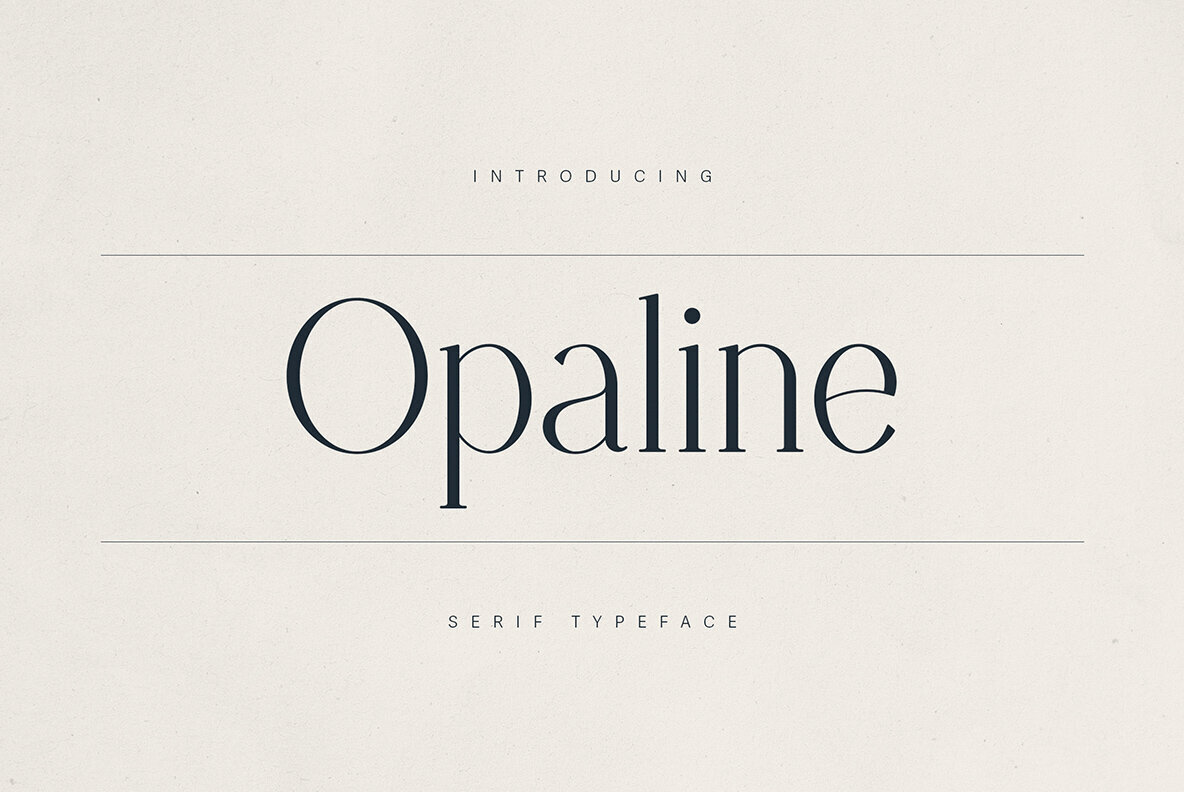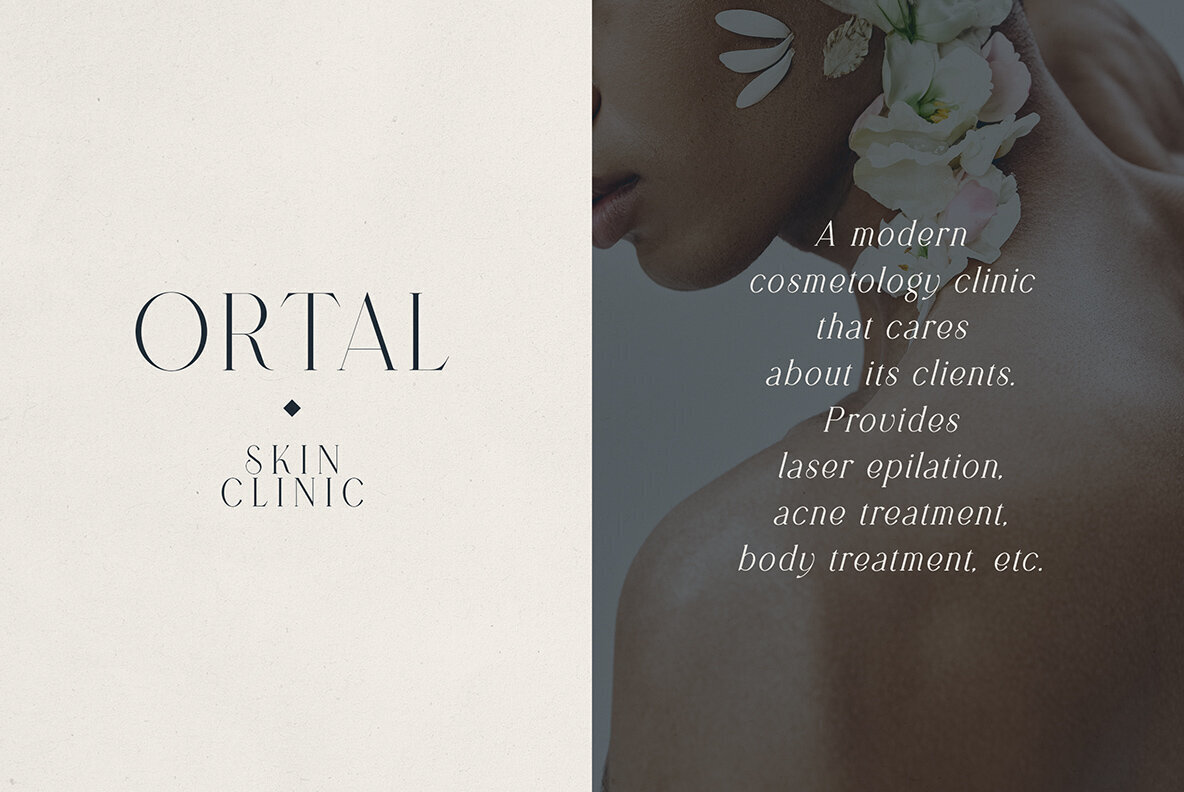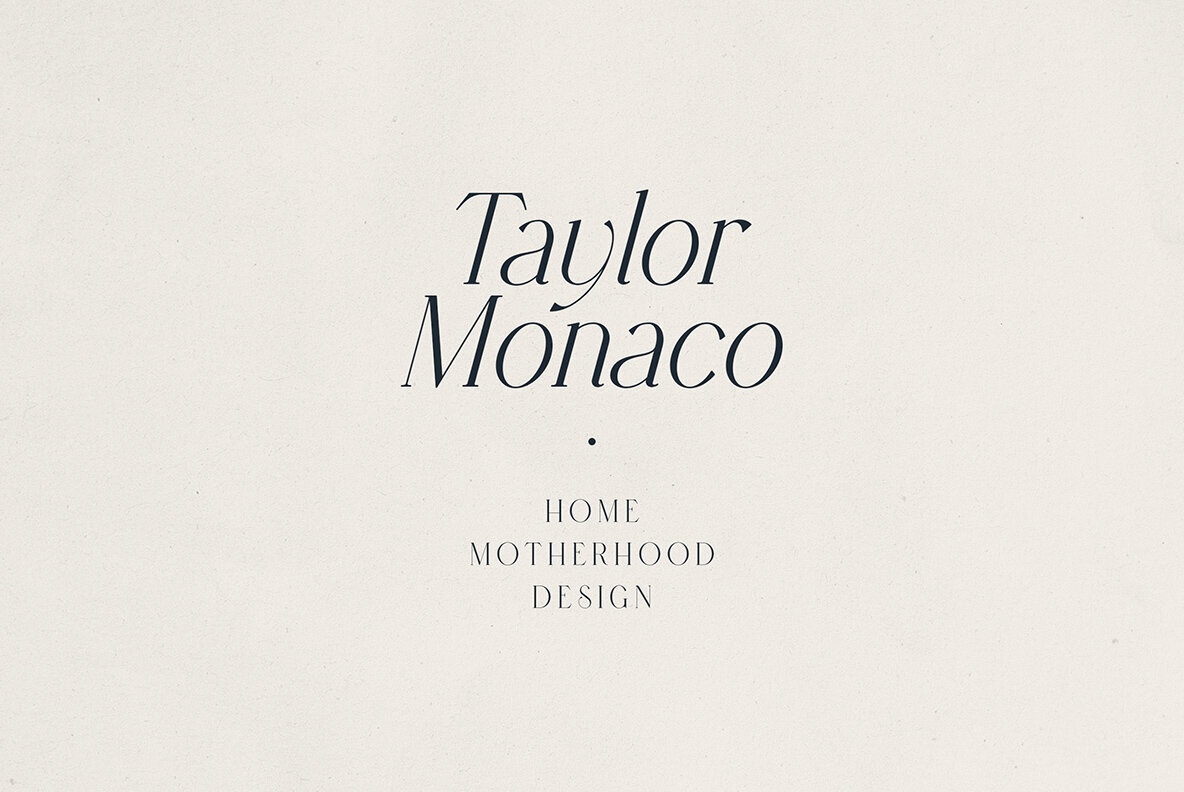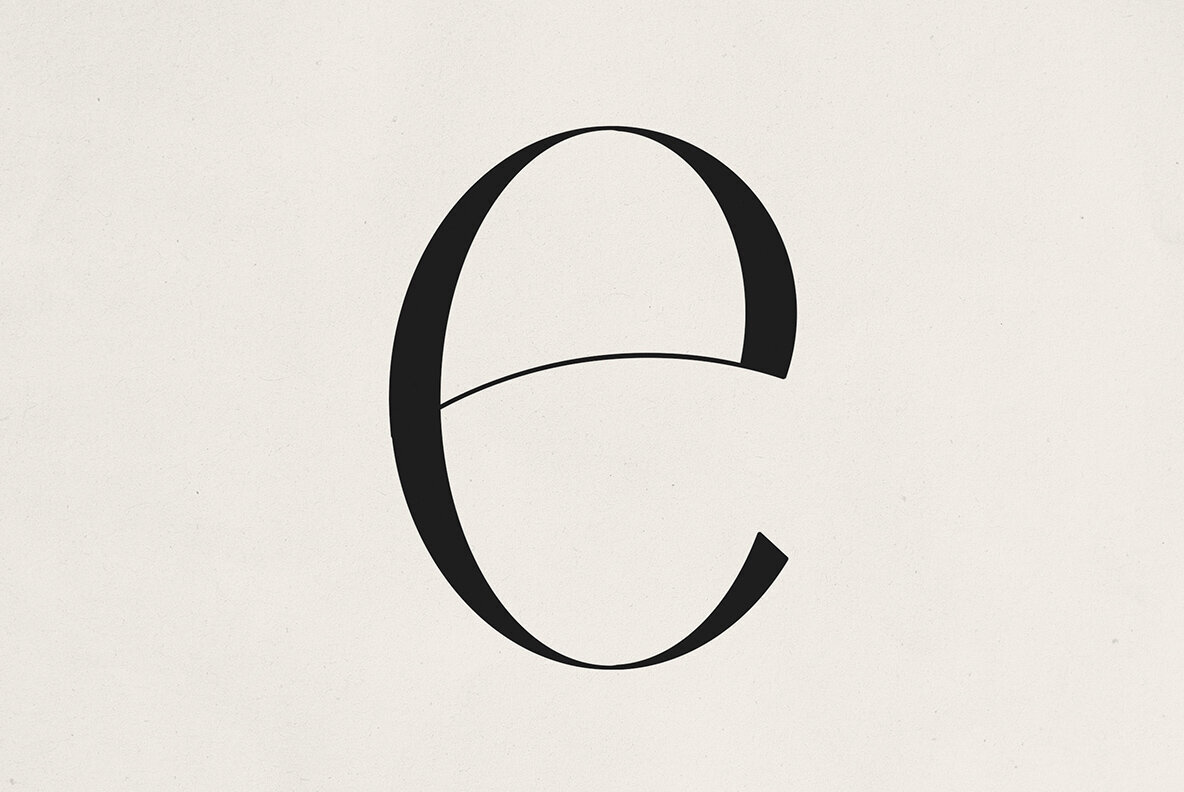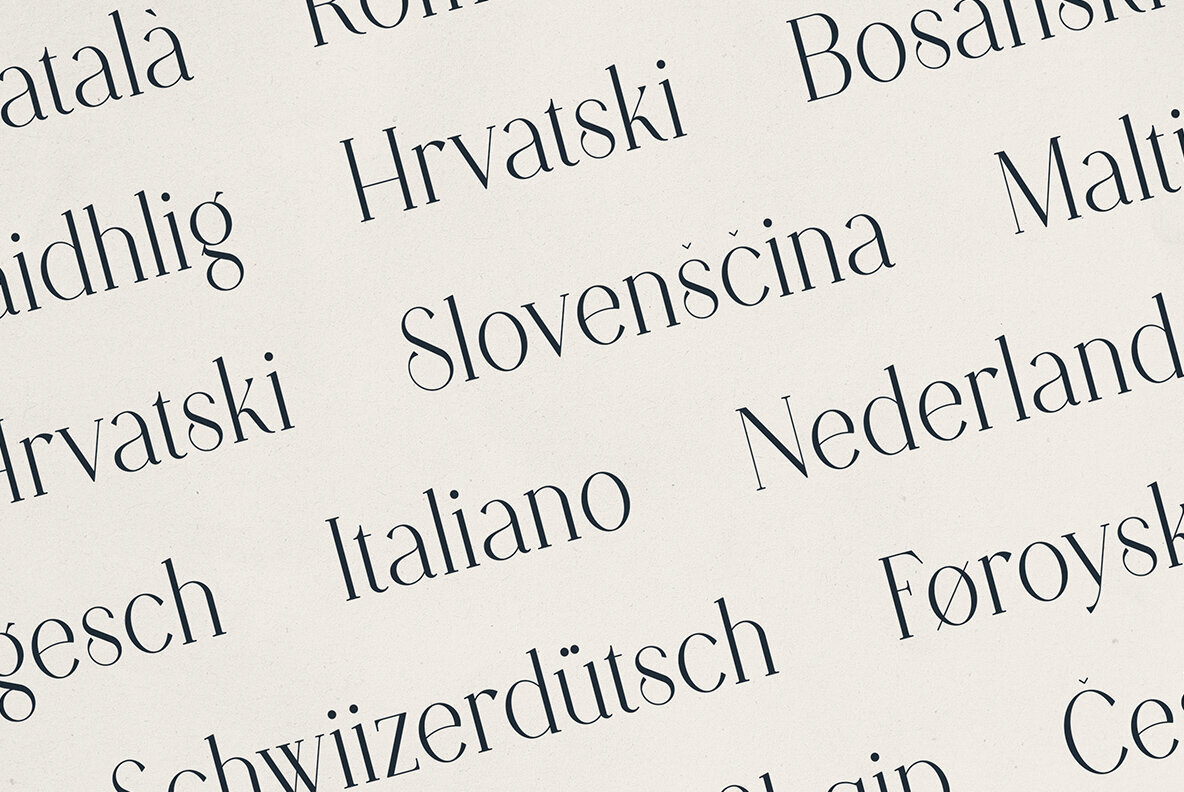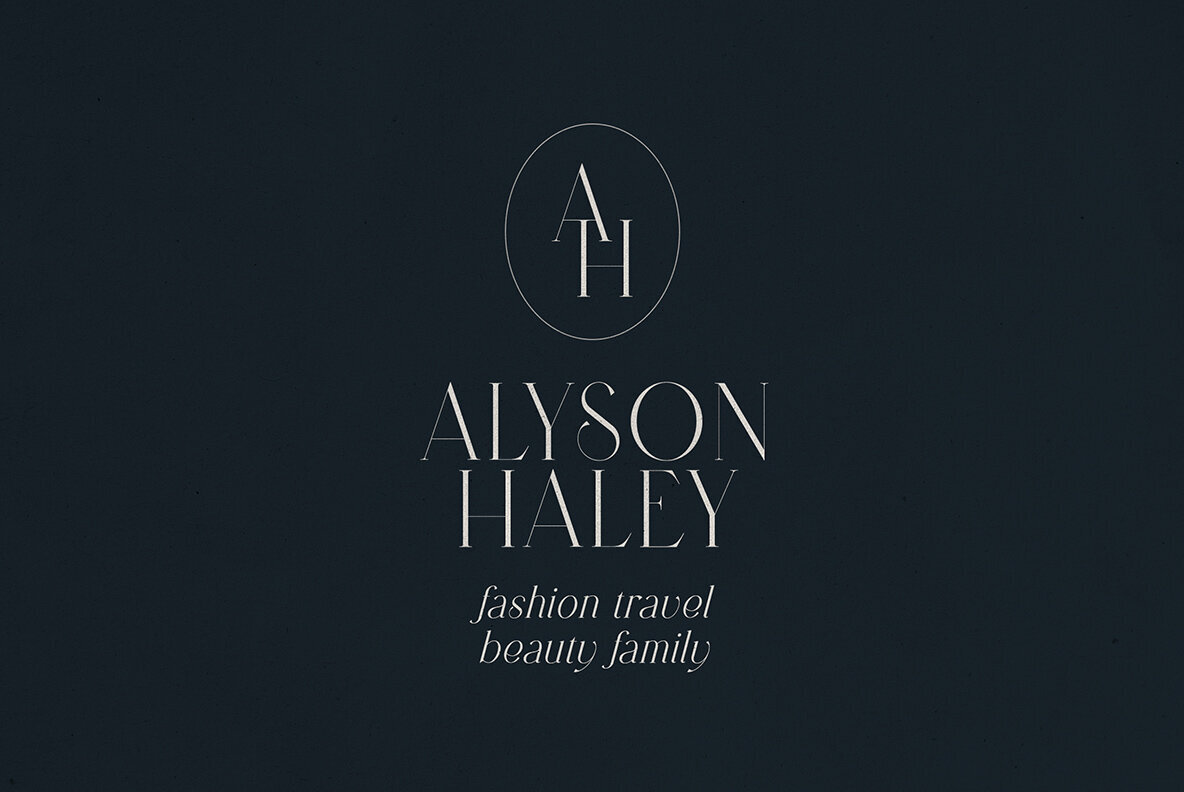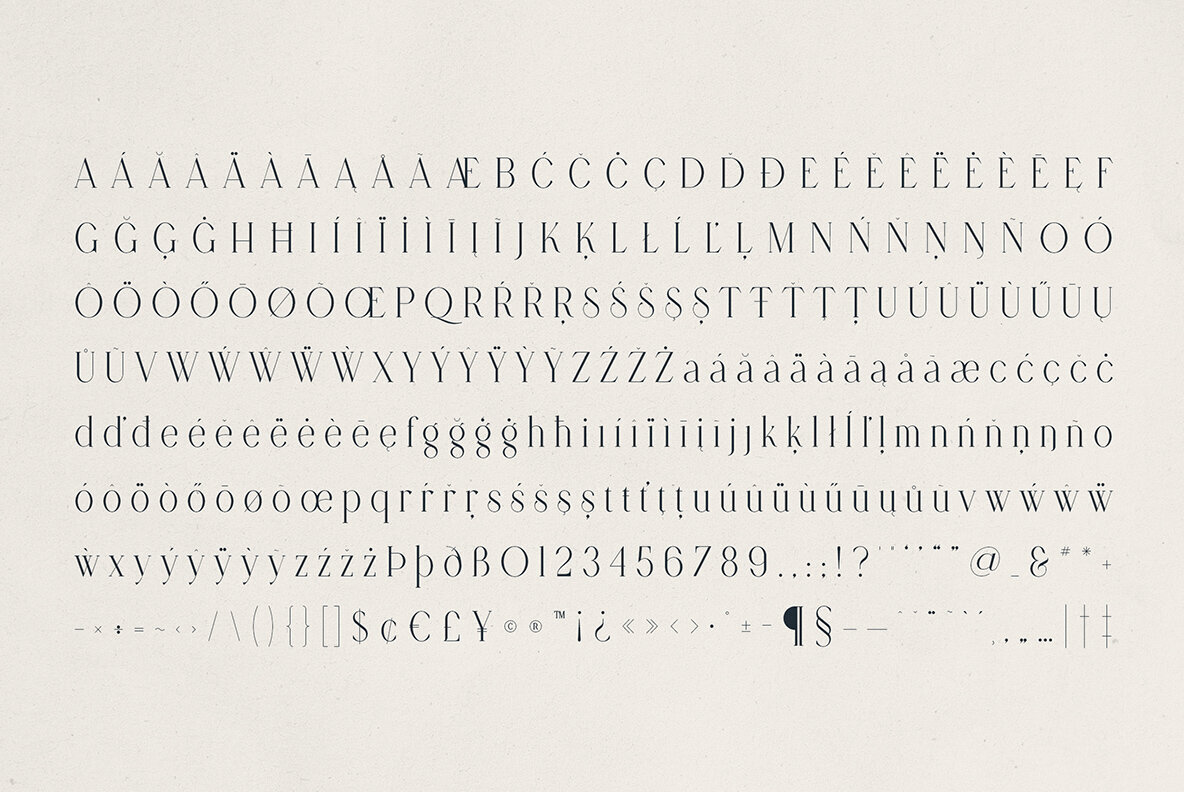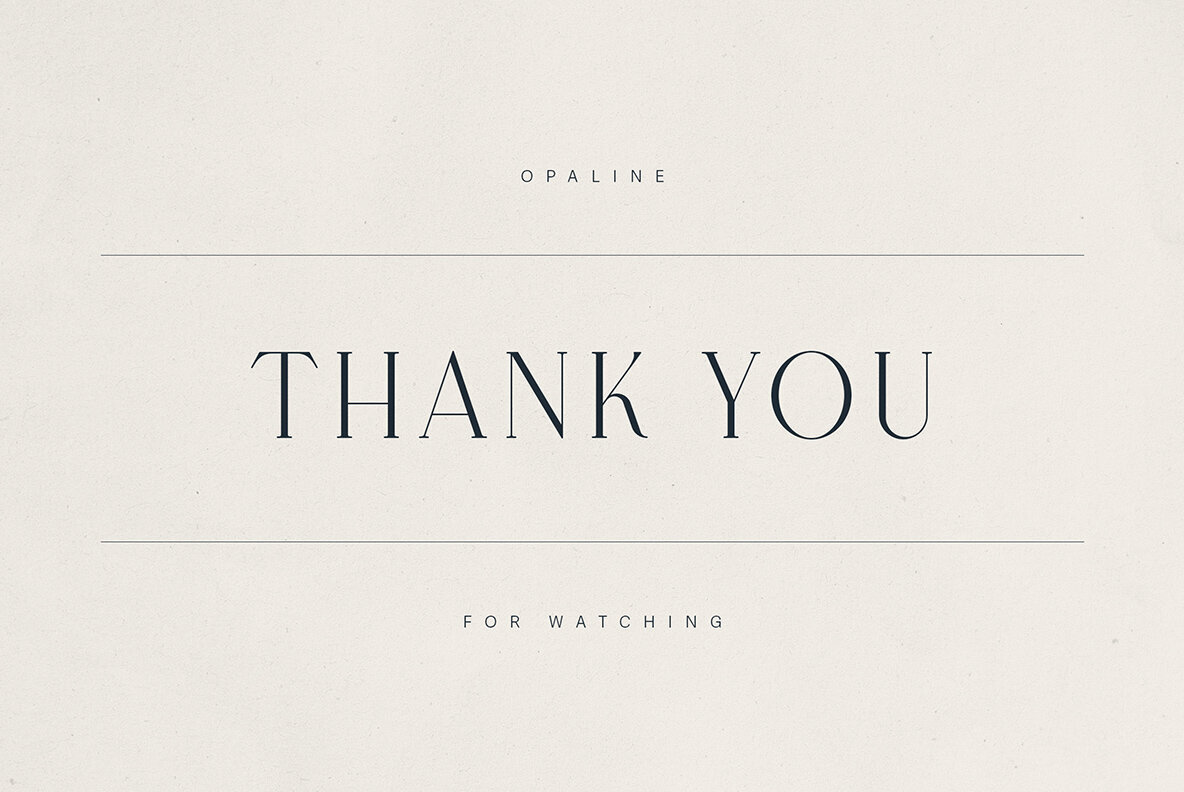
Opaline Font
Opaline is a sophisticated serif typeface perfect for luxury branding, editorial design, fashion, beauty, and lifestyle projects. Its high-contrast strokes and graceful curves create a minimalist elegance that enhances clarity and sophistication in visual compositions. Designed to marry modern sensibilities with classic charm, Opaline features multiple weights from Hairline to Black. This versatility makes it ideal for logos, headlines, social media, packaging, and website design. Opaline is the perfect choice for luxury brands, fashion designers, skin clinics, homeware labels, magazines, influencers, and creators seeking a clean yet expressive serif typeface. Experience timeless elegance in your typography with Opaline's refined aesthetic, whether for a high-end beauty brand, chic furniture label, or an elegant personal identity.Opaline: The Elegant Modern Serif Typeface